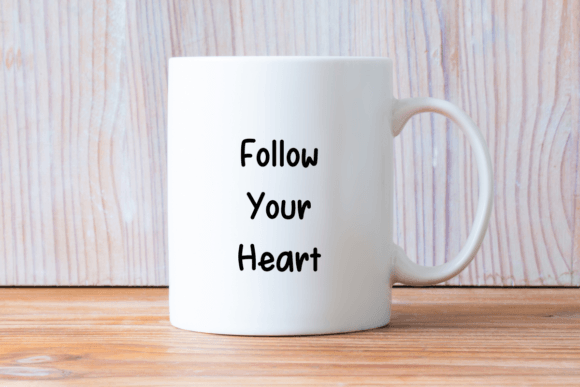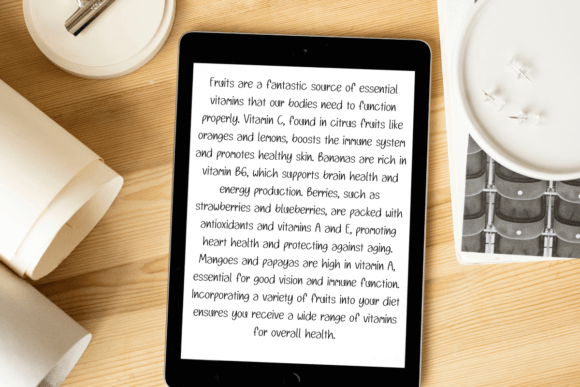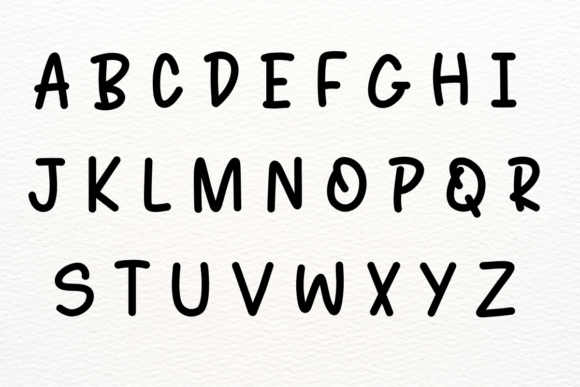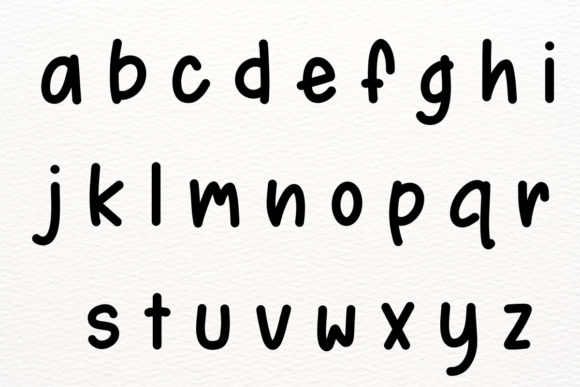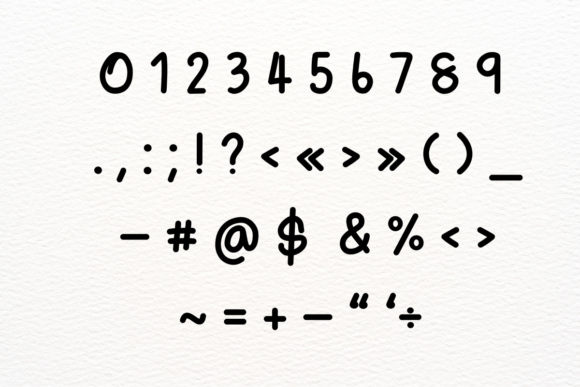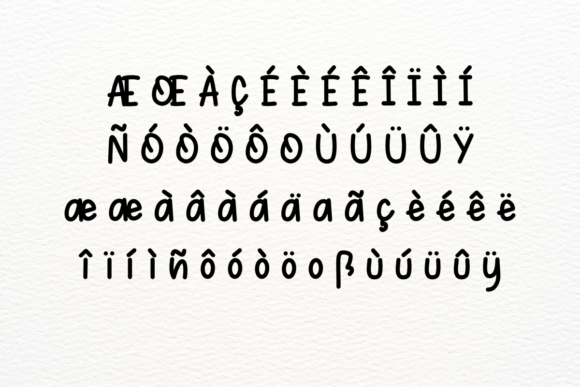
Introduction to Malanie Writing Font
Remember the thrill of finding that perfect font for your creative project? It’s the moment when your design comes to life, and you can finally see your vision take shape. For designers, this moment is what makes all the hard work worth it. And if you’re on the hunt for a font that exudes elegance and sophistication, look no further than the Malanie Writing Font.
| 📌 Product Name | Malanie Writing Font |
| 👤 Author | Petal Pixels |
This charming script font is a design resource like no other, offering a unique blend of high-quality aesthetic appeal and readability. With its flowing, hand-lettered style, the Malanie Writing Font is perfect for a variety of projects, from wedding invitations to branding and logos. Its smooth curves and artistic flair add a personal touch to any text, making it stand out with ease.
Whether you’re working on a free download or a paid project, the Malanie Writing Font is a valuable addition to any designer’s toolkit. With its transparent background, you can use it to create stunning social media posts, website headers, or any other design element that requires a touch of class and creativity.
Key Features of Malanie Writing Font
- High-quality font designed for creative projects, making it a valuable design resource for artists and writers.
- Includes a transparent background, allowing for easy layering and customization in design projects.
- Features a unique, elegant script style that sets it apart from other fonts in its category.
- Designed for use at various sizes and resolutions, making it suitable for a range of design applications.
- Includes a range of language support, making it a versatile choice for international design projects.
Honest Review: Malanie Writing Font
I recently stumbled upon the Malanie Writing Font, and I must say it’s a great addition to my design resources. As a designer, I’m always on the lookout for high-quality fonts that can elevate my creative projects. The Malanie Writing Font is a beautiful, elegant script that’s perfect for wedding invitations, quotes, and other romantic designs.
What works well: ✨ The font is highly customizable, with a range of weights and styles to choose from. The transparent background makes it easy to combine with other design elements. The font also has a very human feel to it, making it perfect for handwritten quotes and messages.
Here are some of the features I love about the Malanie Writing Font:
- Transparent background for easy design integration
- Range of weights and styles to choose from
Limitations: ⚠️ While the font is generally well-designed, I did find it to be a bit too ornate for some projects. It’s also not suitable for small font sizes, as it can become difficult to read.
Overall, I’m impressed with the Malanie Writing Font. It’s a great design resource that can add a touch of elegance to any project. Just be mindful of its limitations, and you’ll be all set to create beautiful, high-quality designs with this font.
Tips for Getting the Most Out of Malanie Writing Font
Use the Malanie Writing Font in conjunction with a high-quality design resource, such as a transparent background, to create a cohesive and visually appealing design. Experiment with different font sizes, colors, and alignments to find the perfect combination for your creative project.
The Malanie Writing Font is a versatile design resource that can be used in a variety of creative projects, including blog posts, social media graphics, and presentations. Its high-quality design and transparent background make it an ideal choice for designers and non-designers alike.
Does the Malanie Writing Font have a transparent background?
Yes, the Malanie Writing Font has a transparent background, making it ideal for use on various backgrounds, including images and videos. This feature allows you to easily overlay the font on top of other design elements.